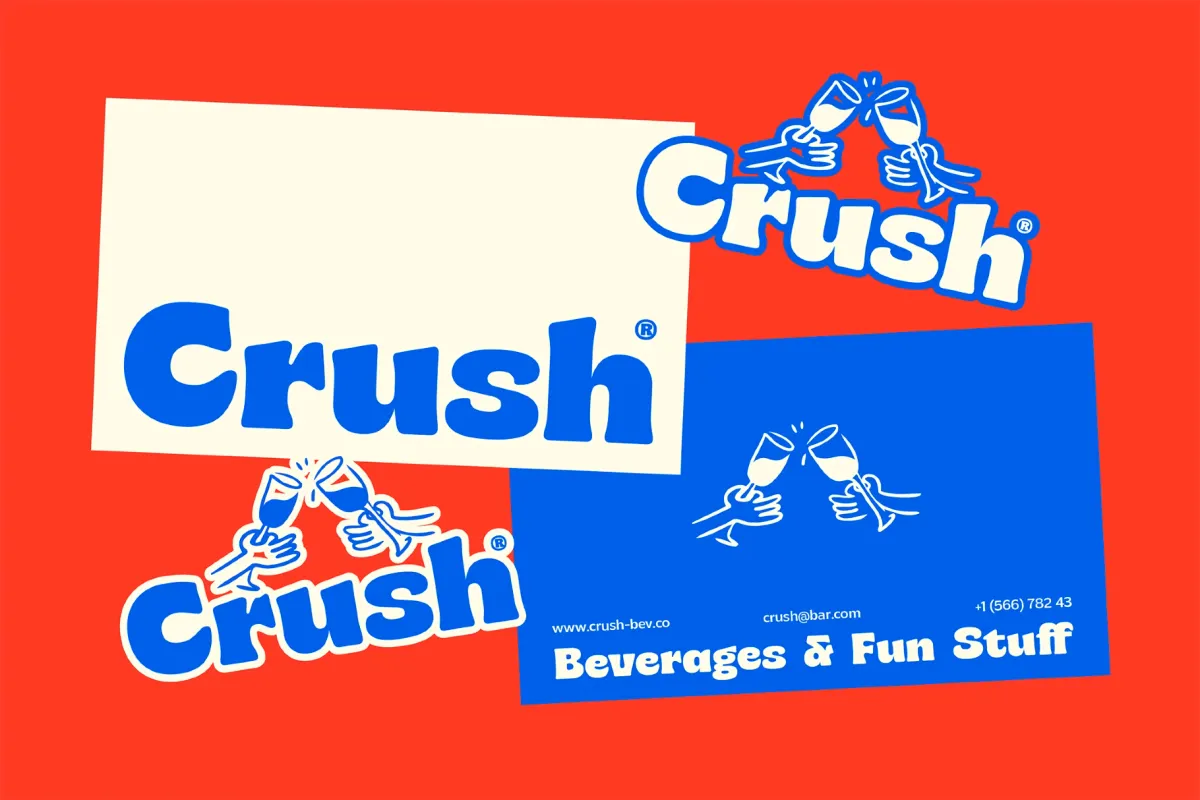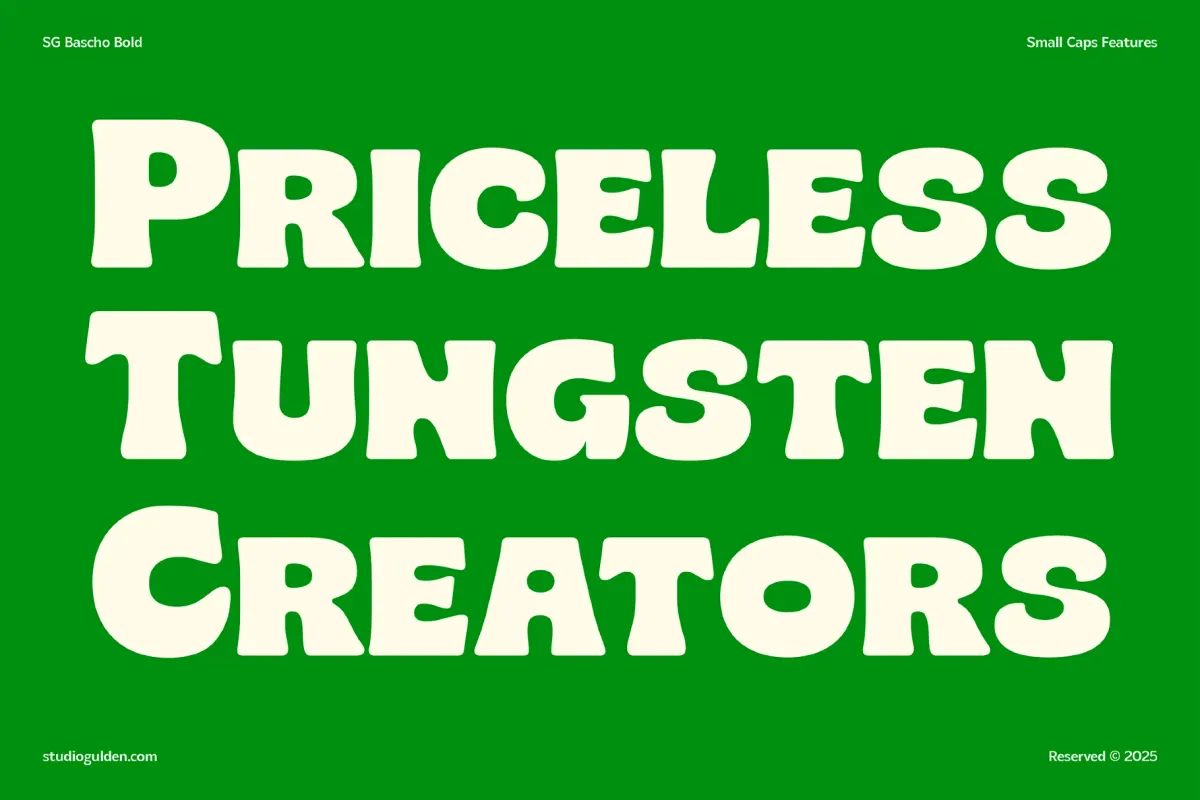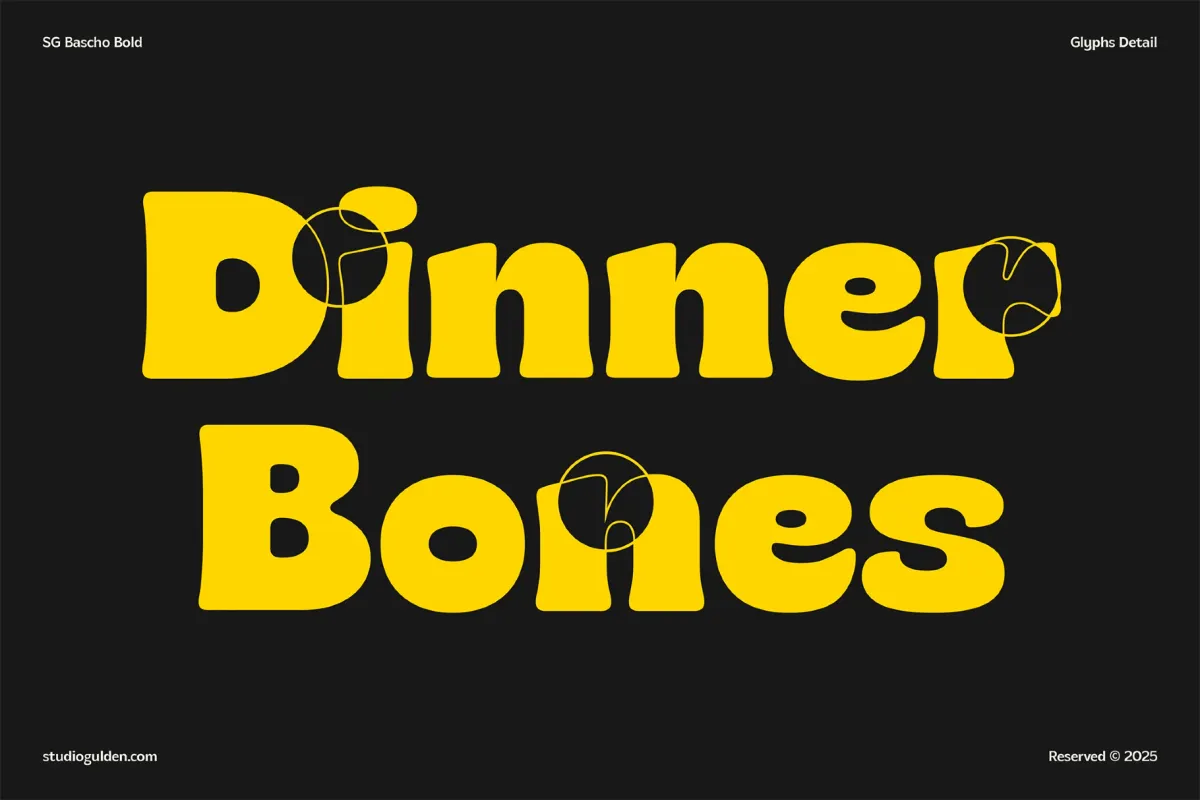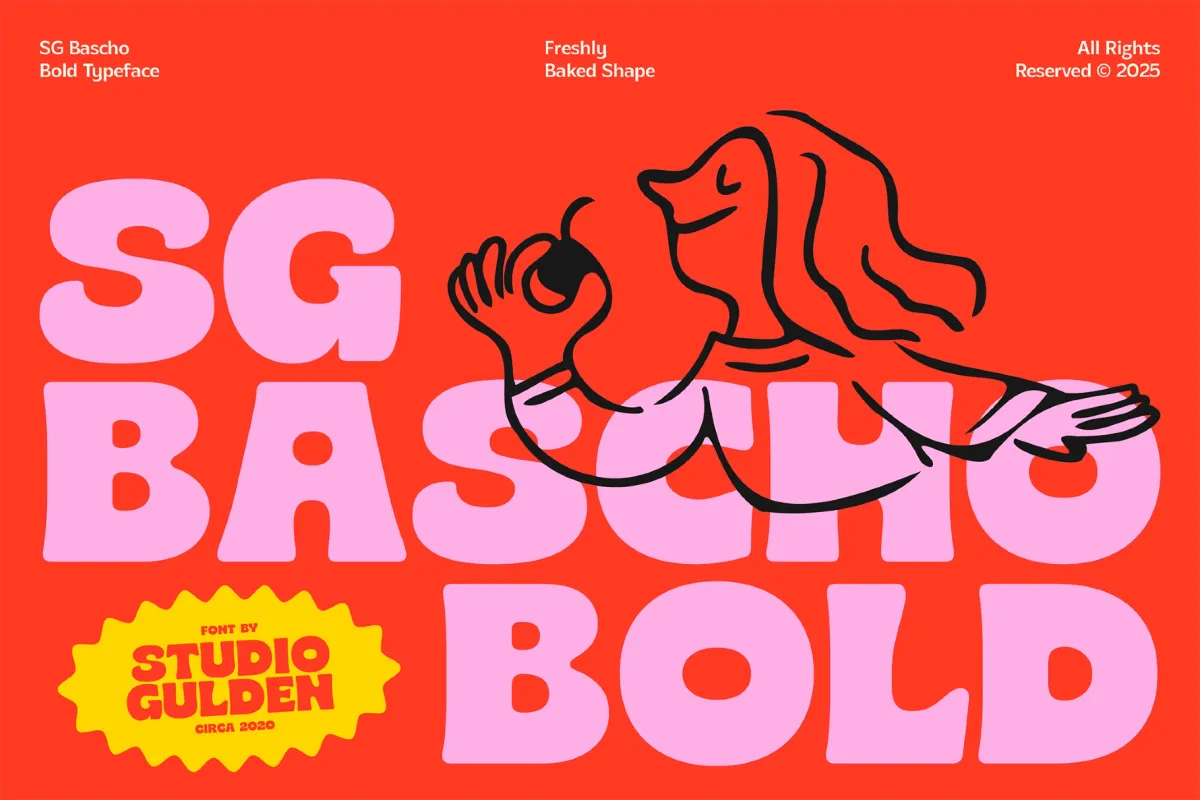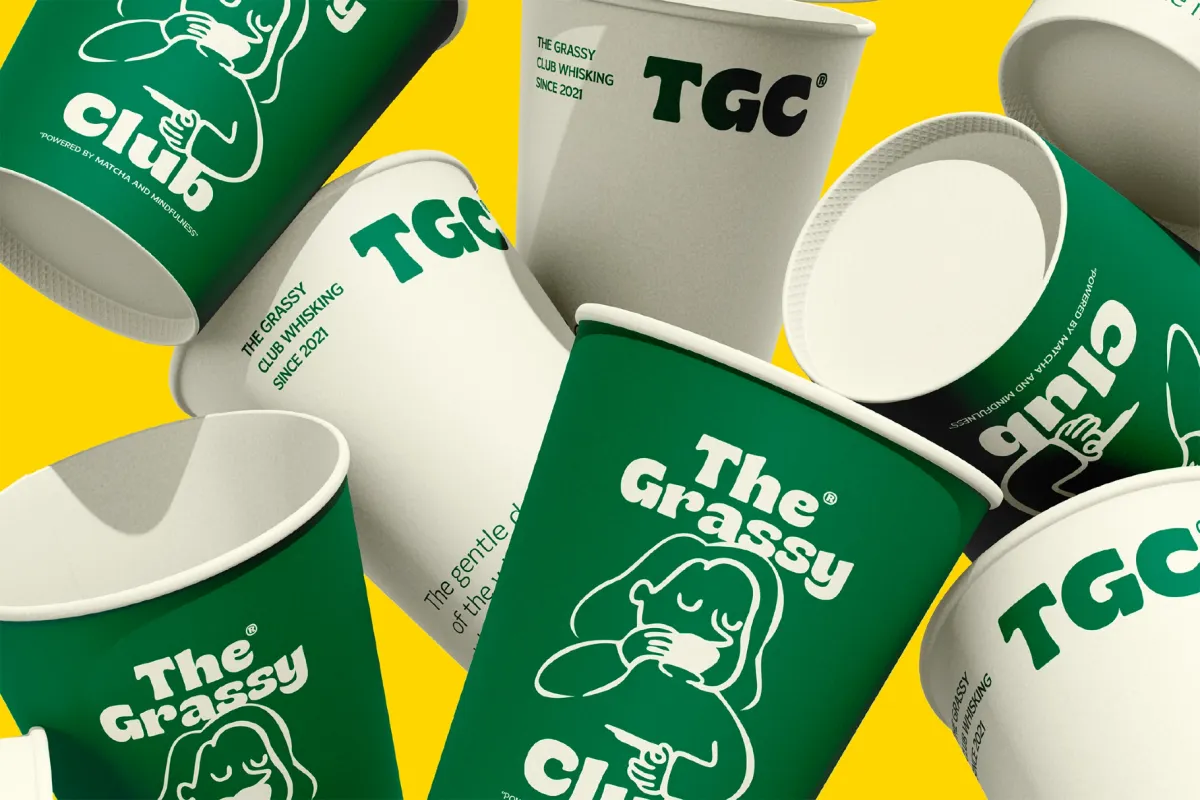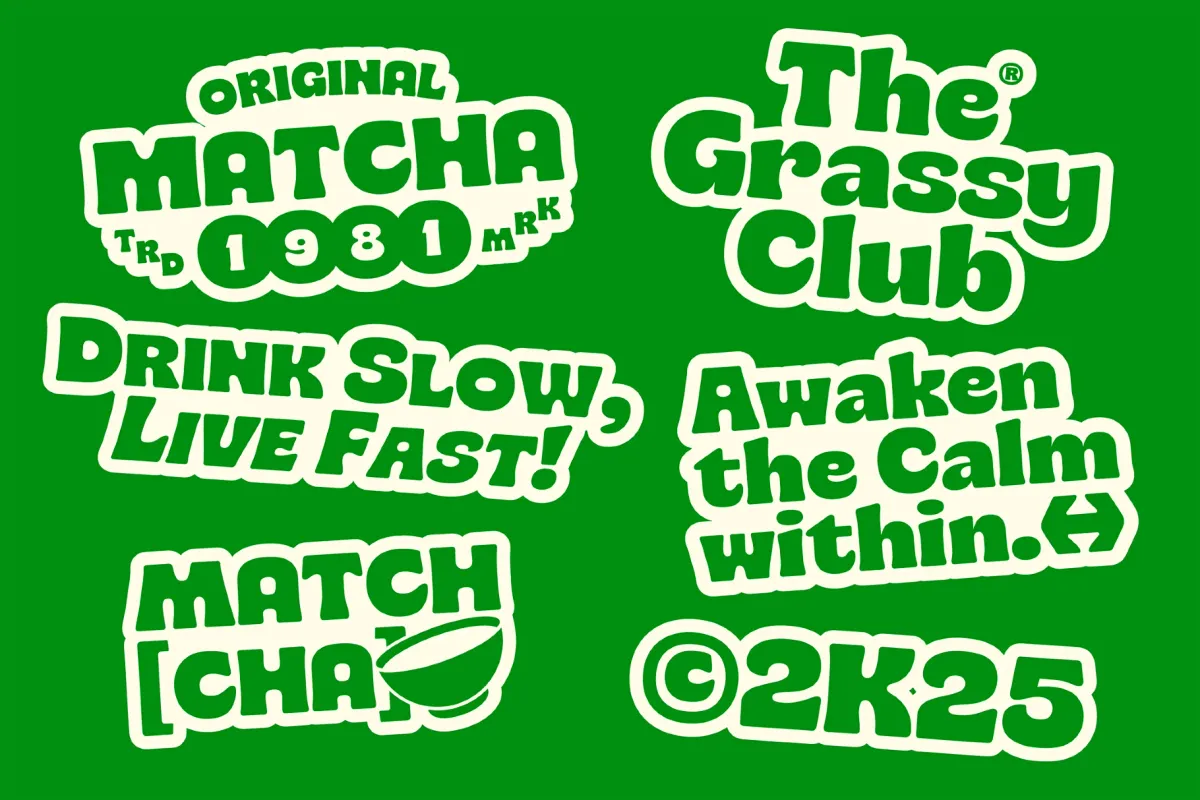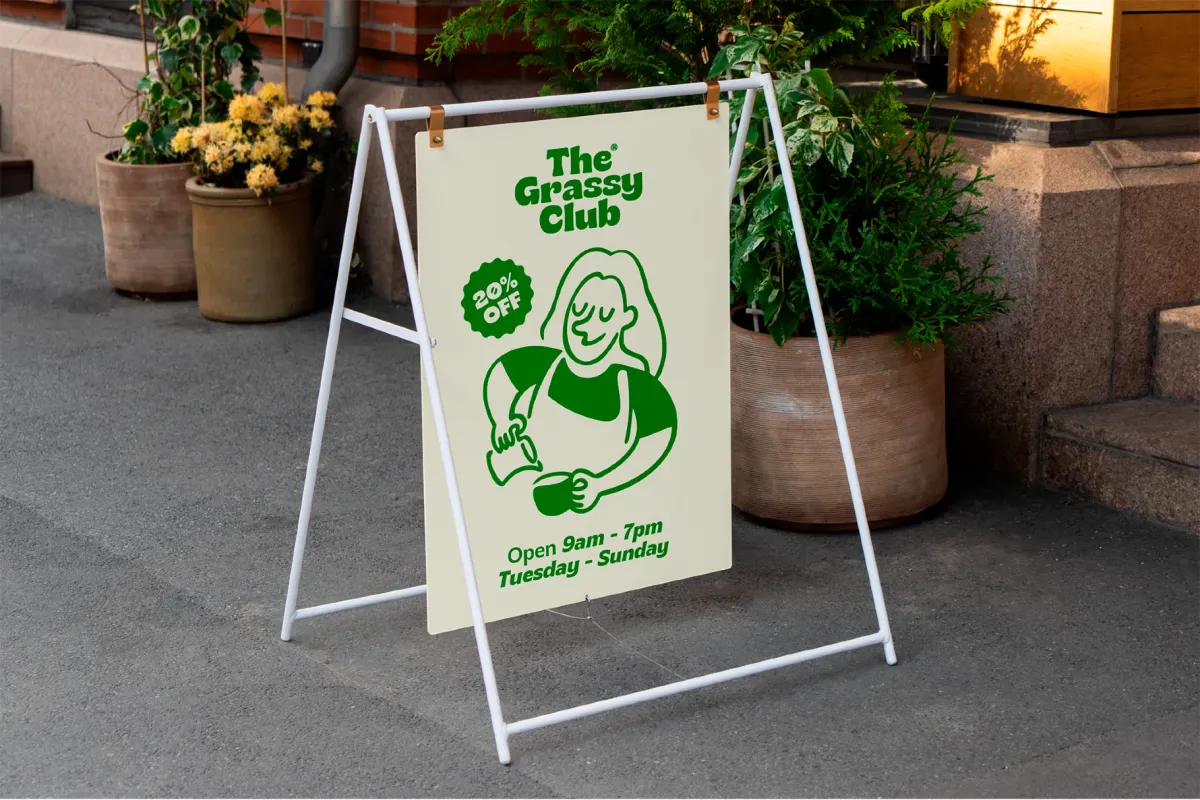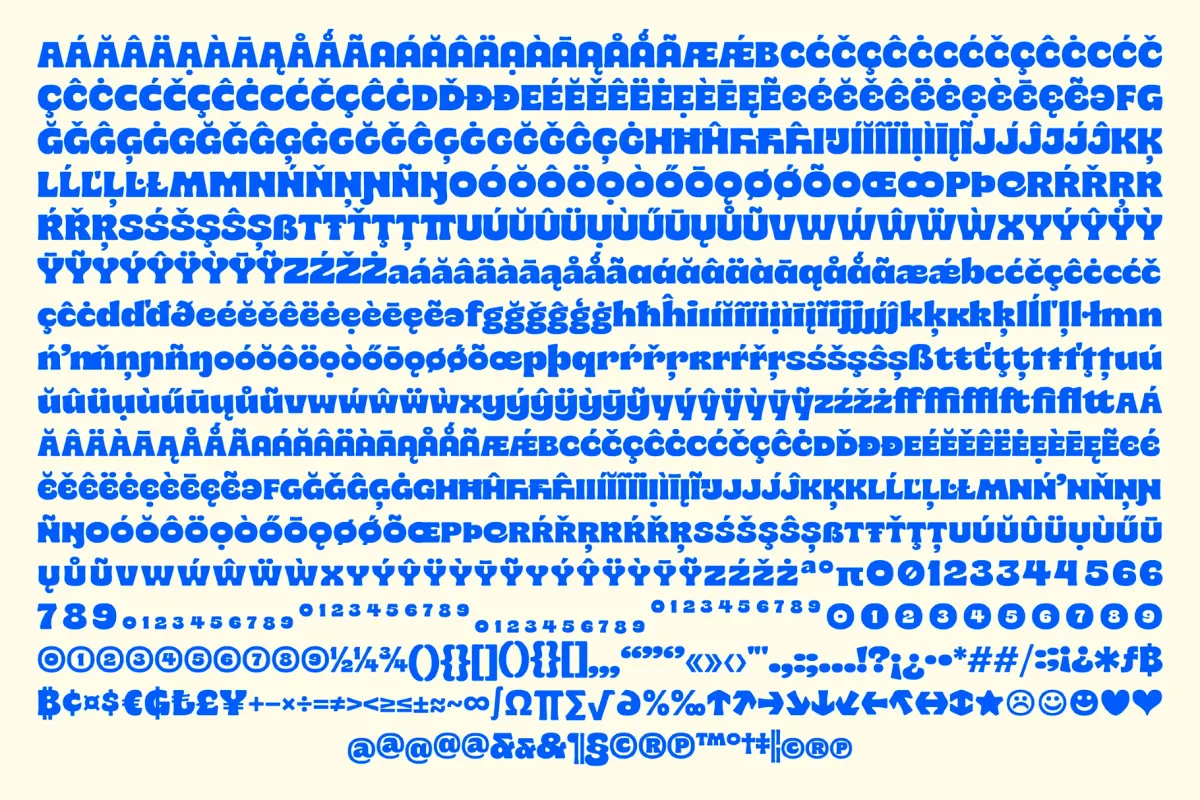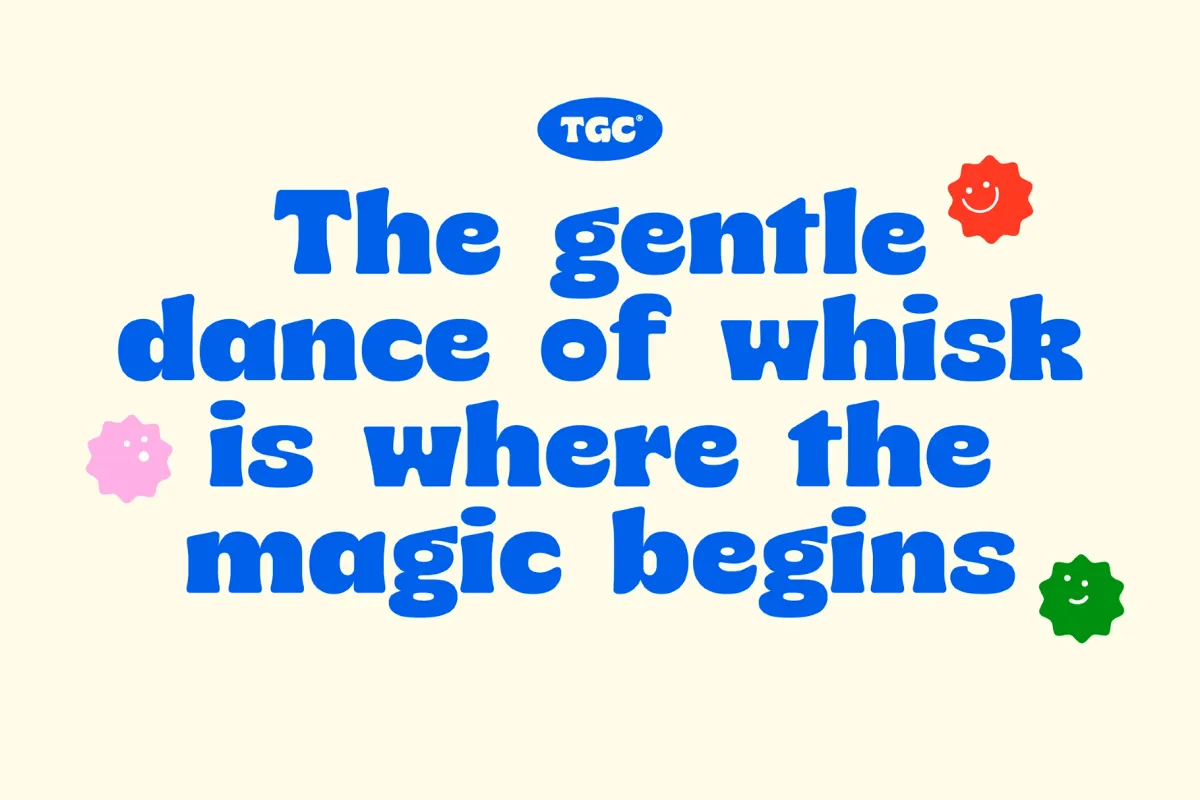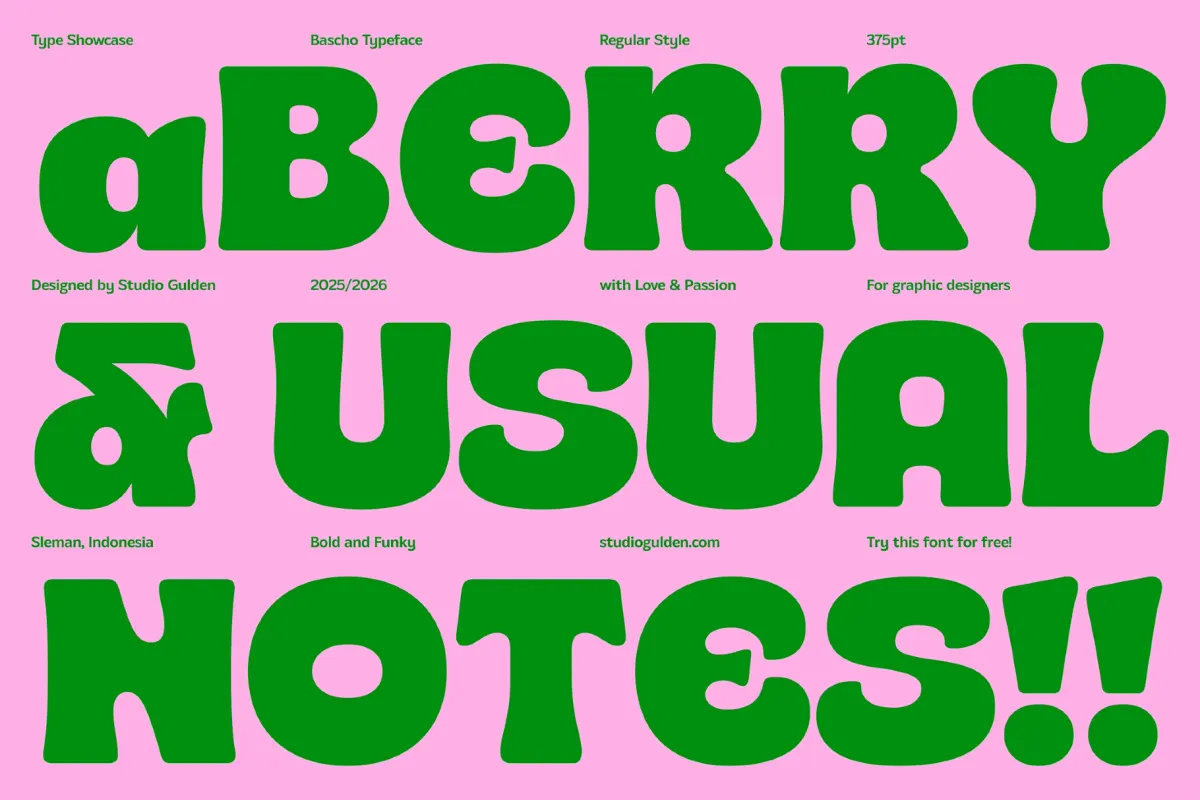
SG Bascho Bold
This chunky serif brings soft edges and retro warmth into a modern spotlight. The curves are human, the voice is friendly. Its bold forms and melted serifs are inspired by 70s typography, as they strike a perfect balance between playful and powerful.
SG Bascho conveys approachable boldness in branding, packaging, magazine headlines, logos, digital content, artisanal labels, and feel-good campaigns.
• Regular and Slanted styles;
• 500+ glyphs;
• multilingual support for Latin-based languages;